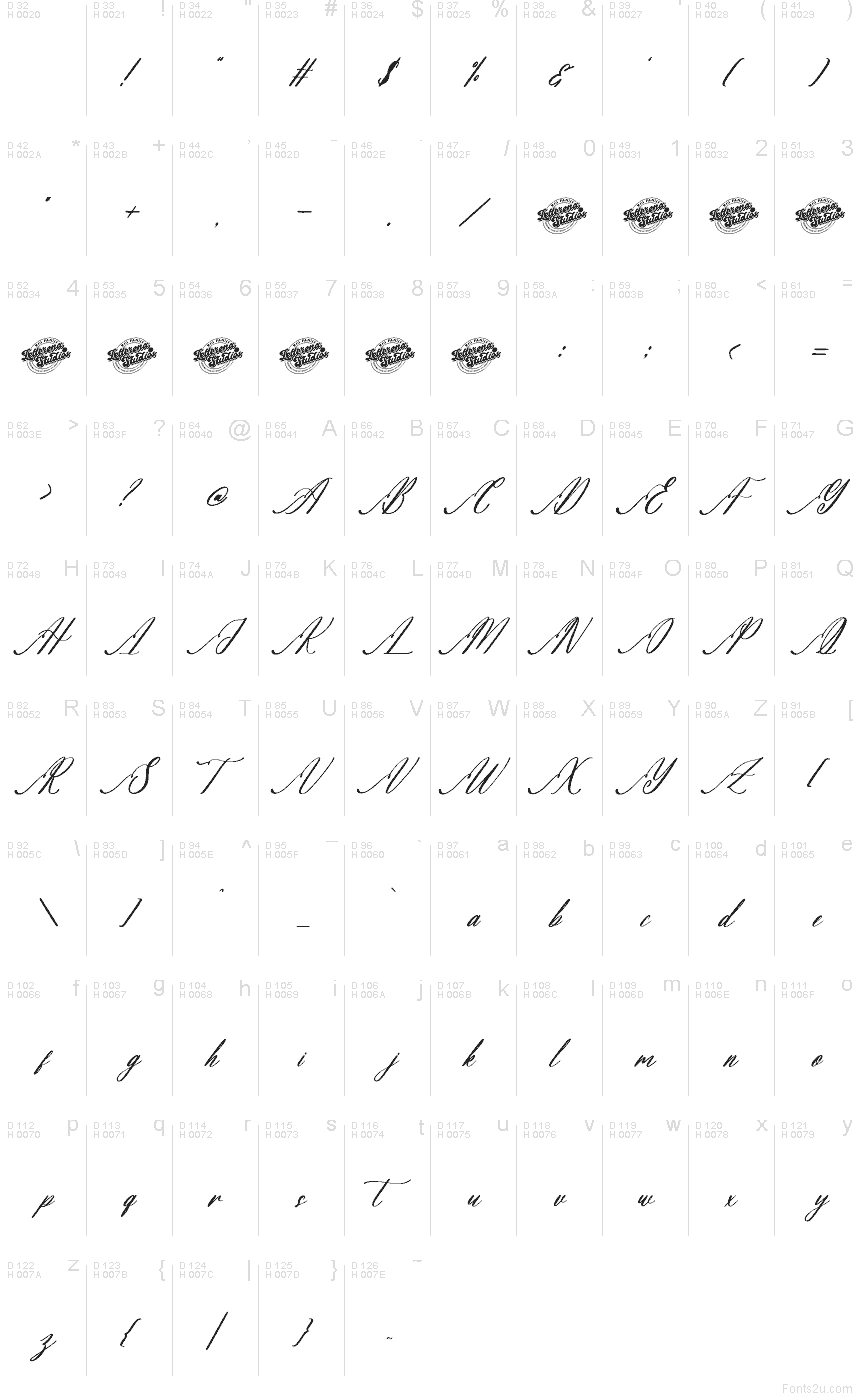
Sovinhaya Dictaselin DEMO VERSI Italic
Sovinhaya Dictaselin Italic font by Letterena Studios is a free calligraphy typeface that captures the feel of fast, confident pen strokes on fine paper. Flowing letterforms, long sweeping tails, and a gentle rightward slant give the Sovinhaya Dictaselin family a romantic, handwritten grace, while the tight rhythm keeps words from feeling messy or chaotic. The texture is inky and slightly dramatic, adding just enough flair to make simple phrases feel special.
Using Sovinhaya Dictaselin Italic, you can bring an elegant script voice to wedding invitations, save‑the‑dates, boutique logos, beauty packaging, certificates, social media quotes, and headline treatments. This free font shines when set large, letting the flourishes breathe, and it works beautifully when paired with a clean geometric sans‑serif for supporting text.